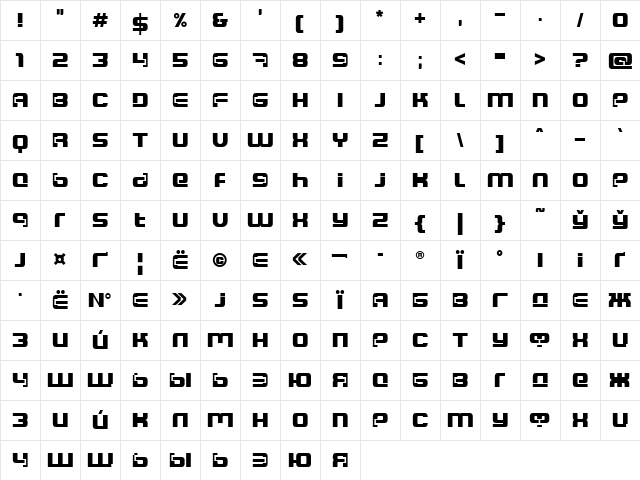
ft84 Semi-expanded SemiBold
Design Context for ft84 Typeface
ft84 offers clean, dependable letterforms without strong stylistic allegiance, making it a practical choice for designers who need flexibility. Its bold stroke weight gives it real presence on the page.